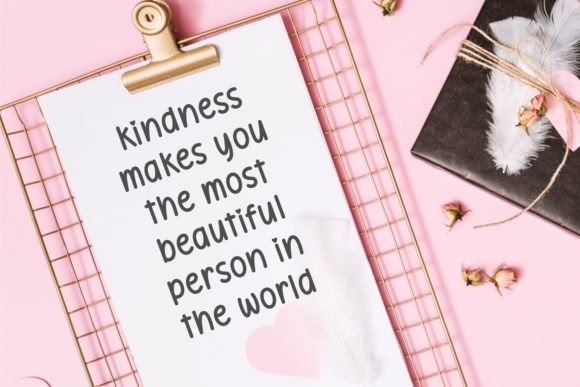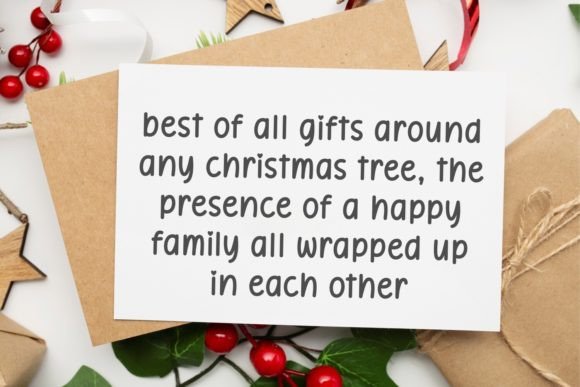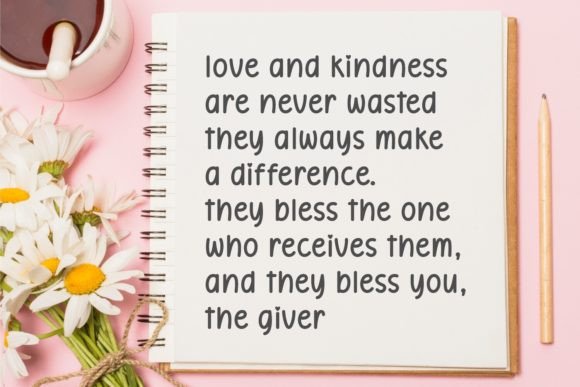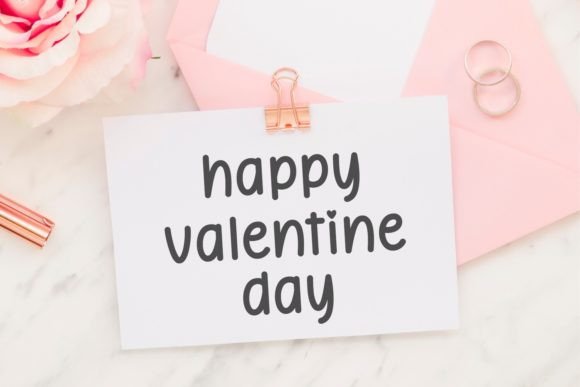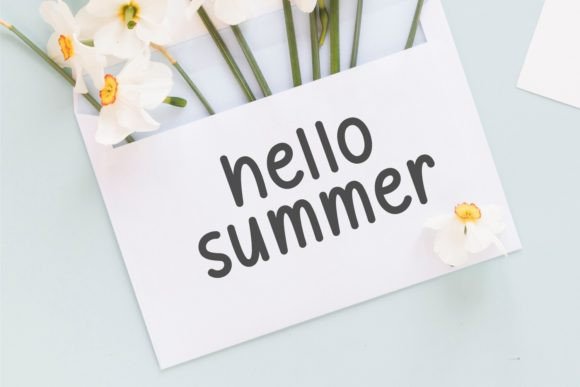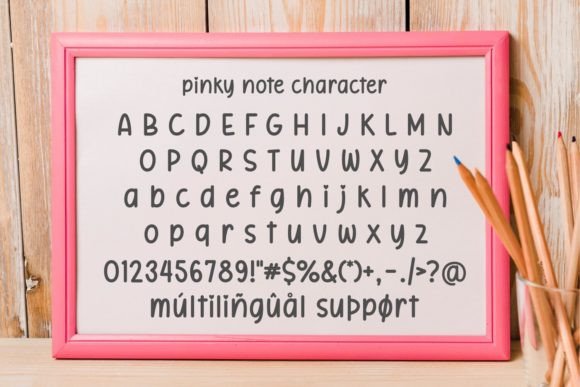
Introduction to Pinky Note Font
Experience the charm of Pinky Note, a whimsically endearing handwritten font ensemble that weaves a tapestry of joy in every word.
Itโs a font that radiates a playful spirit and adds an enchanting vibe to everything from your blog posts to birthday party invitations With Pinky Note, you can bring Christmas, Valentineโs Day, and summertime fรชtes to life, adding a heartwarming touch to every festive occasion.
Key Features of Pinky Note Font
Why Choose Pinky Note Font?
Pinky Note Font offers exceptional quality and versatility, making it a valuable addition to your design toolkit. Whether you’re creating for personal projects or commercial use, Pinky Note Font delivers professional results.